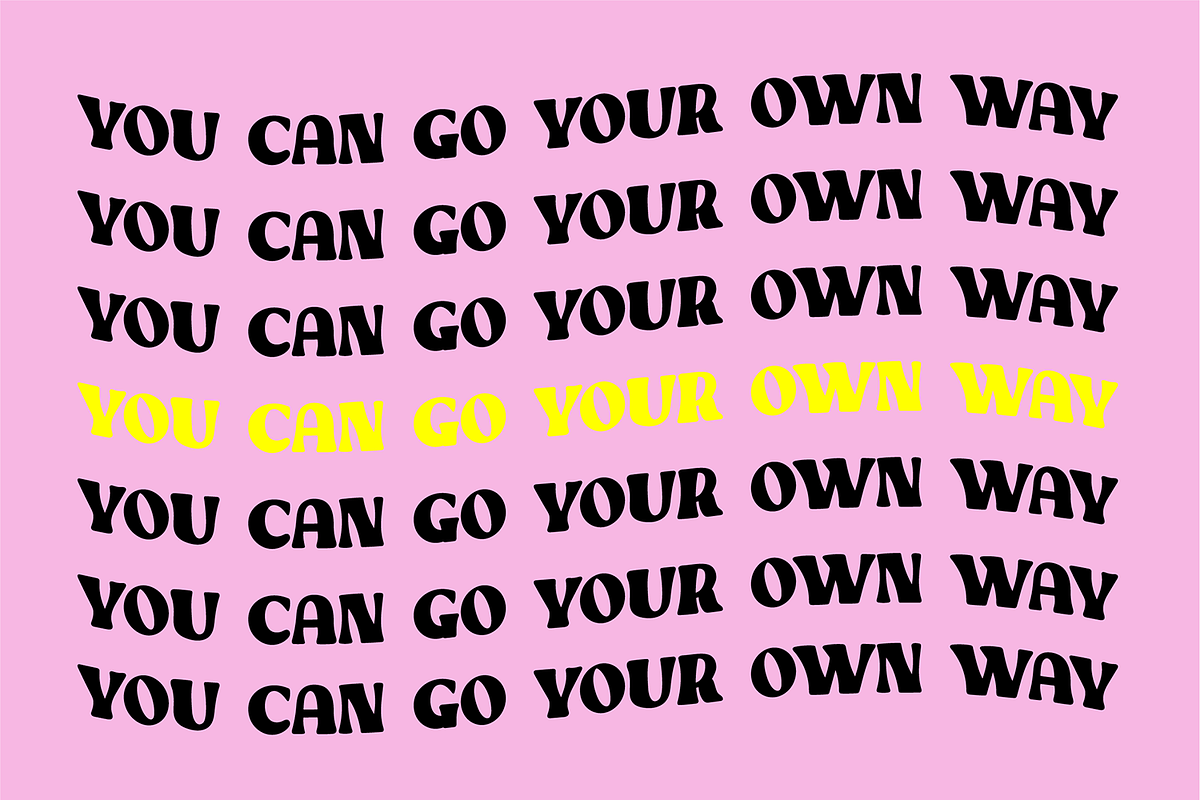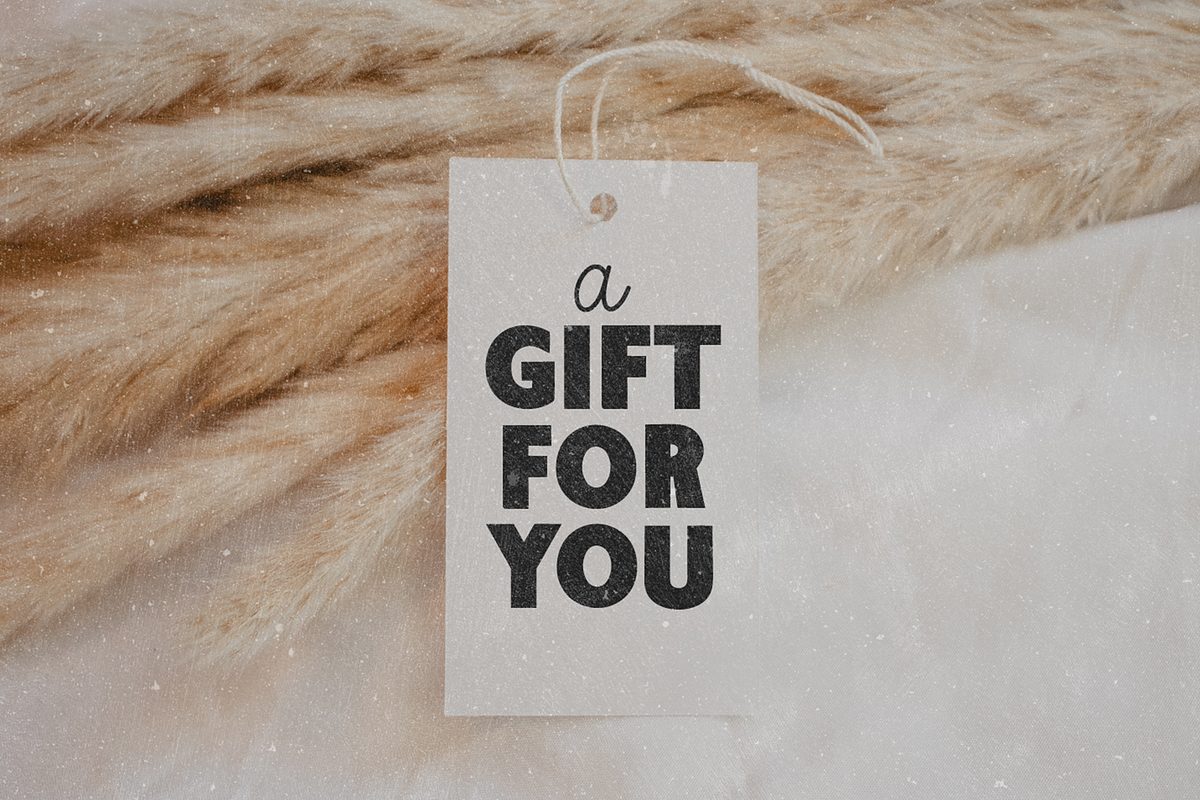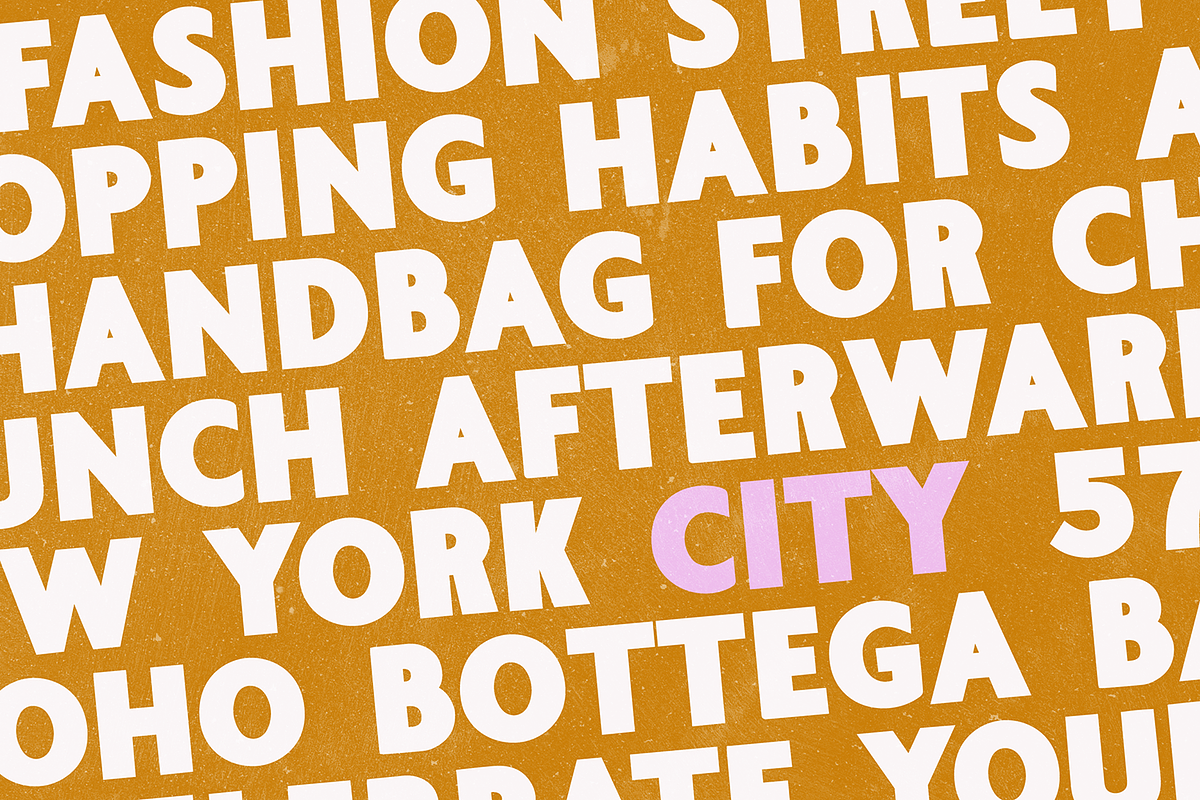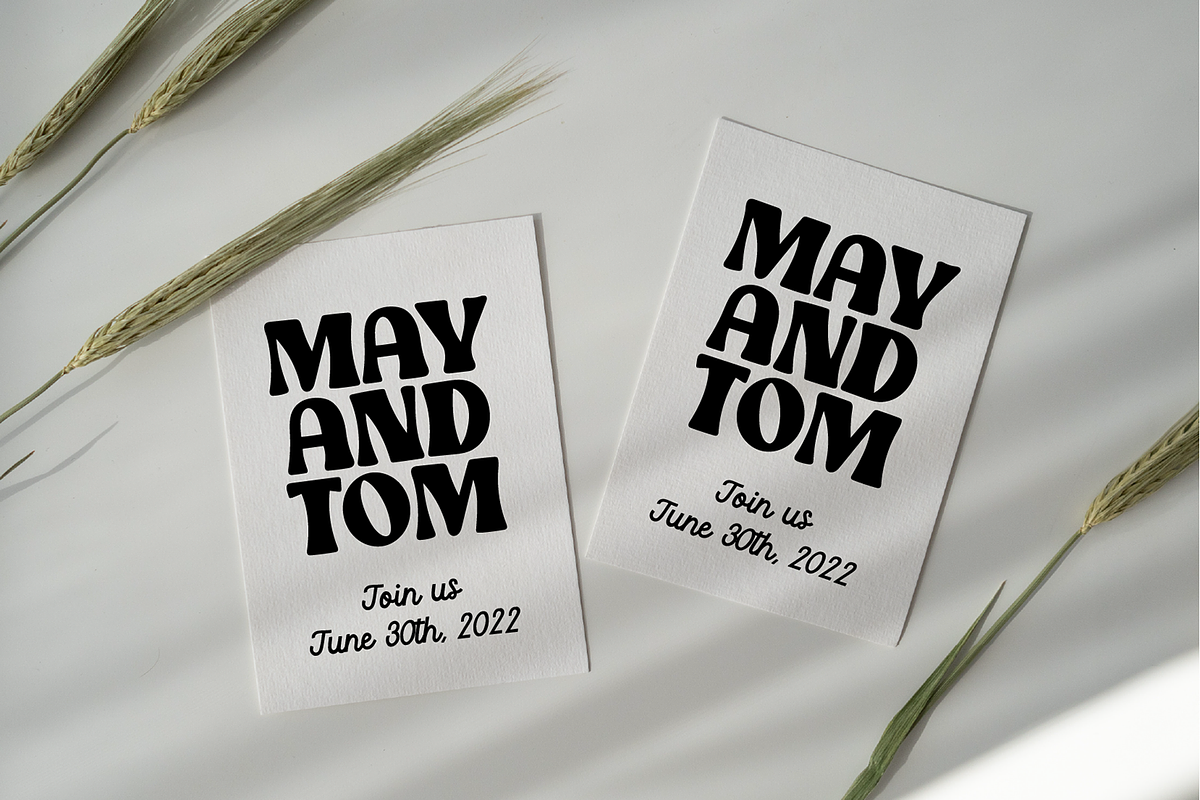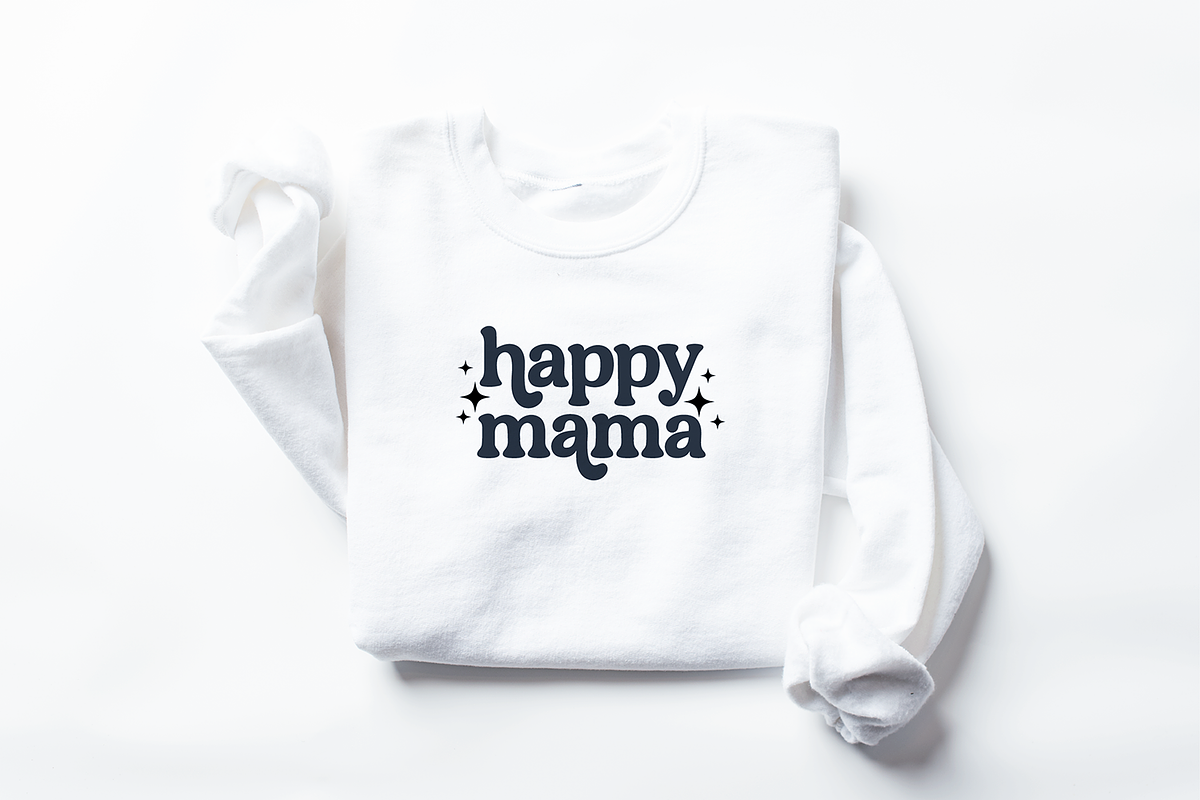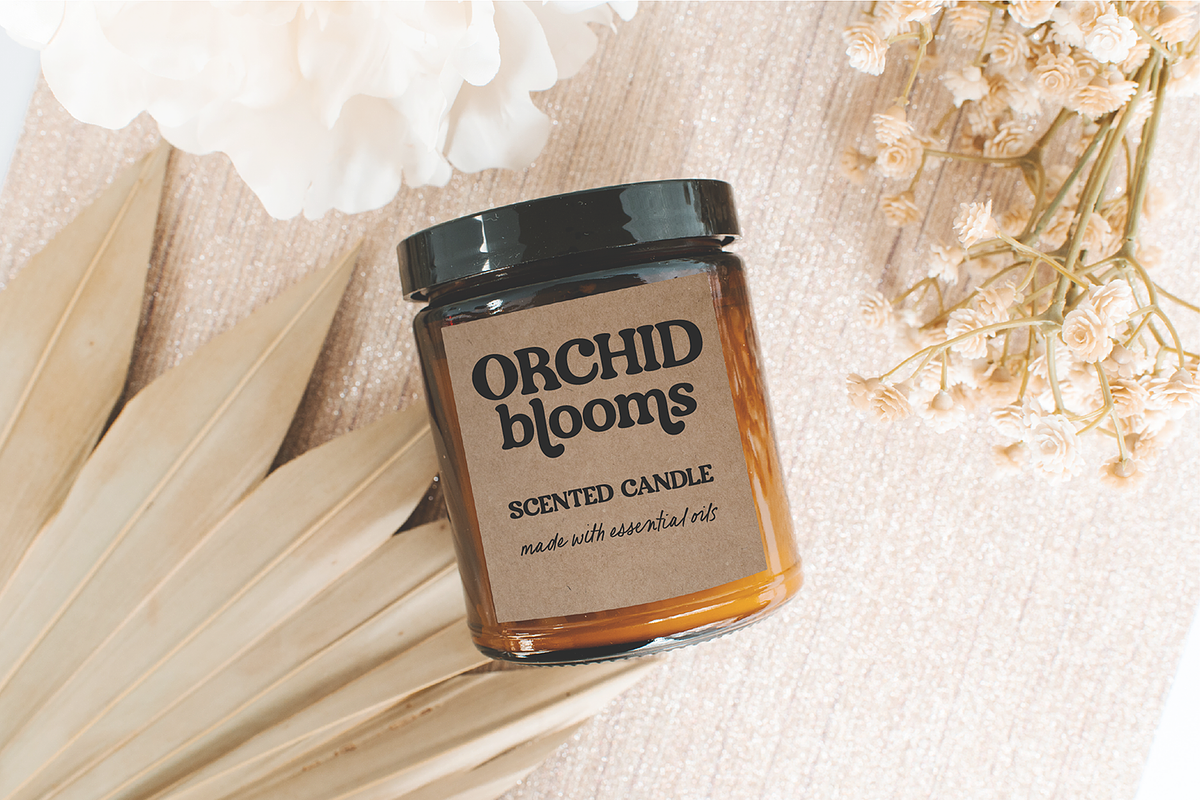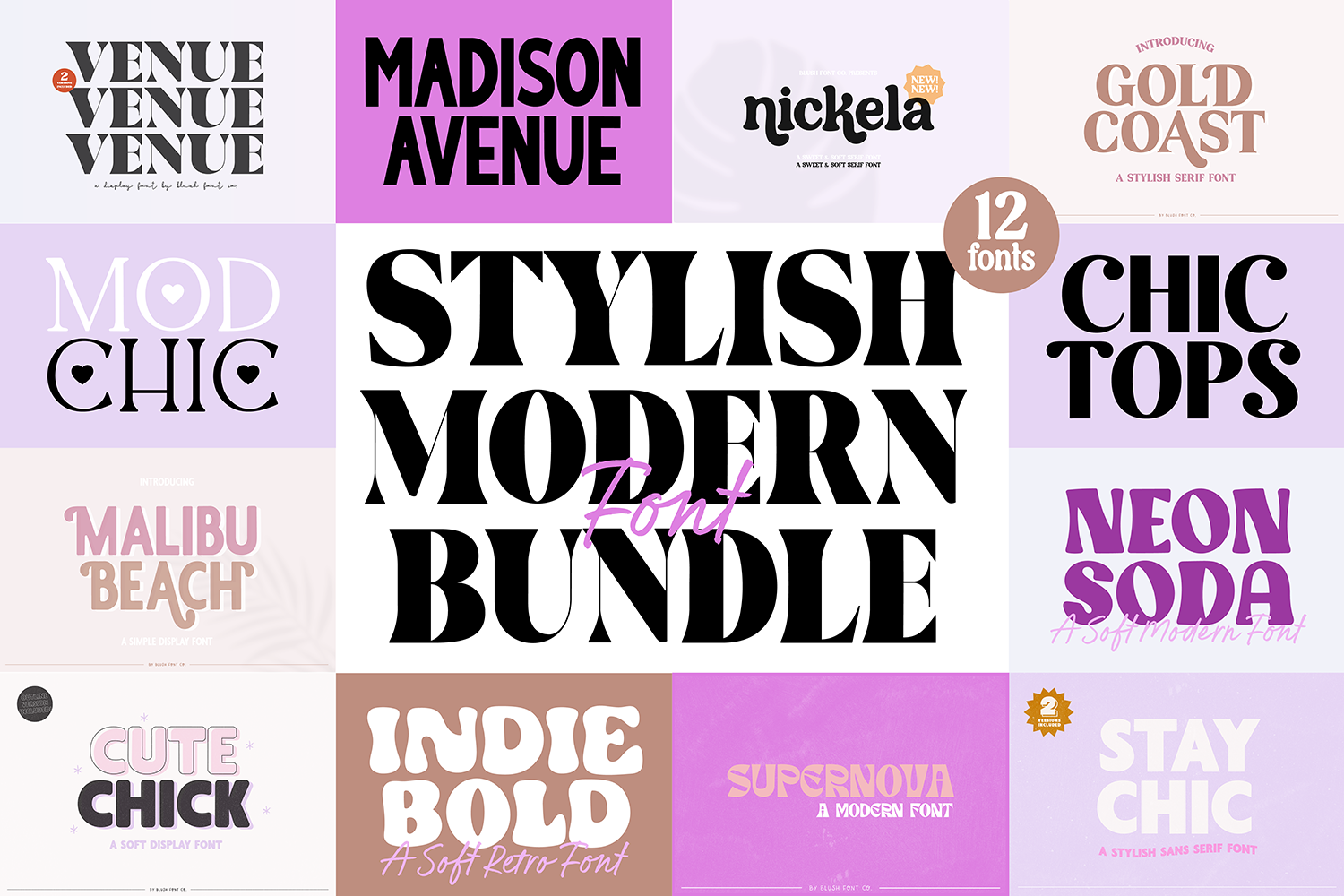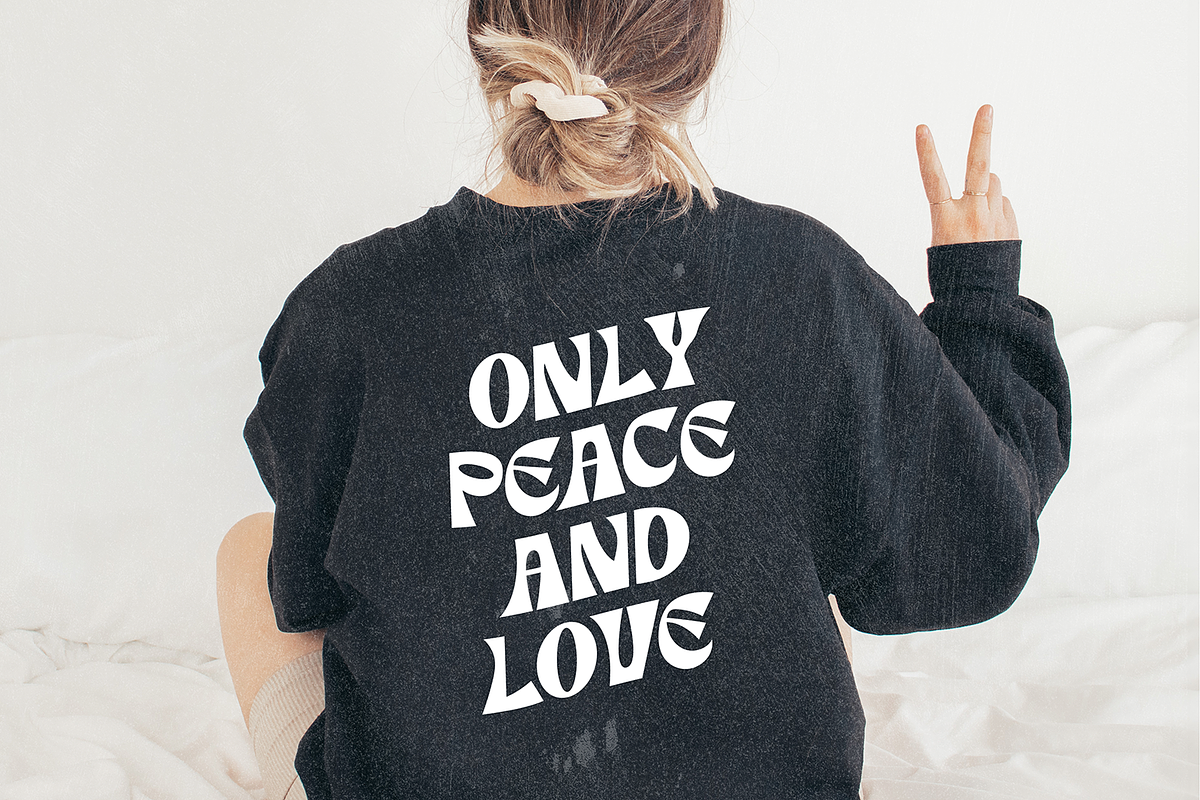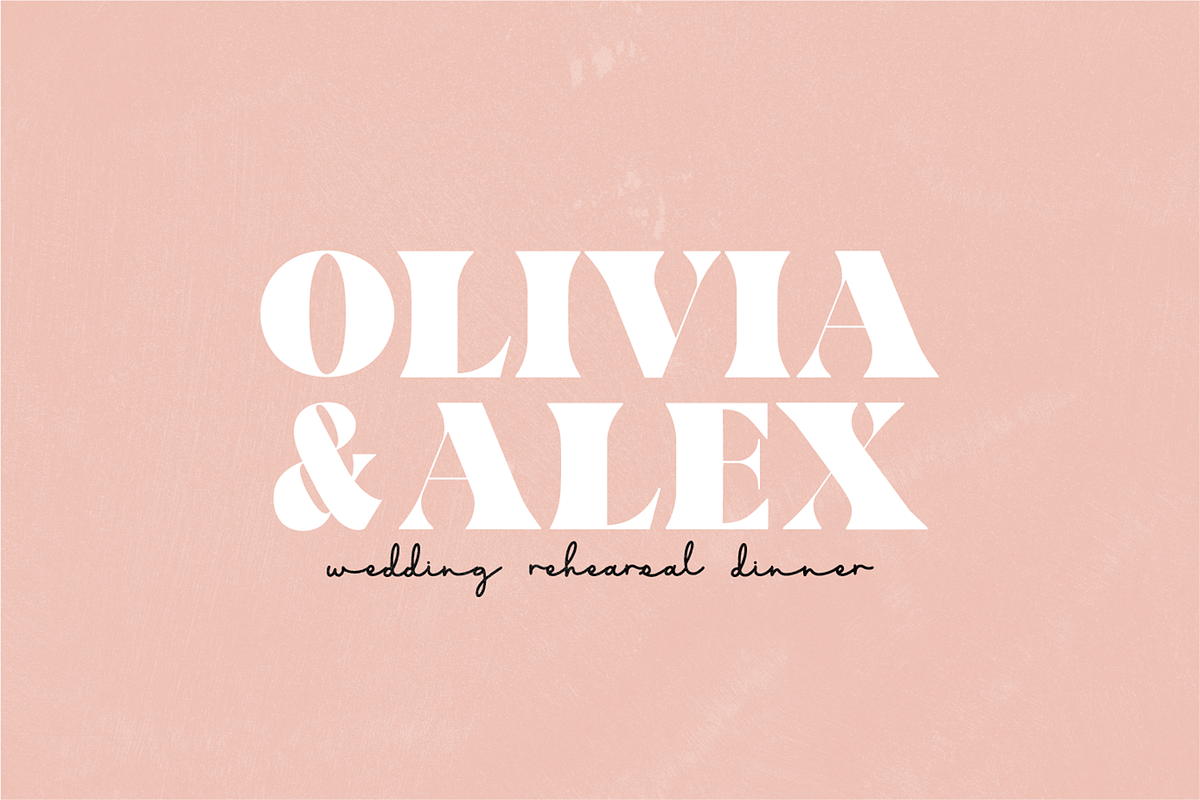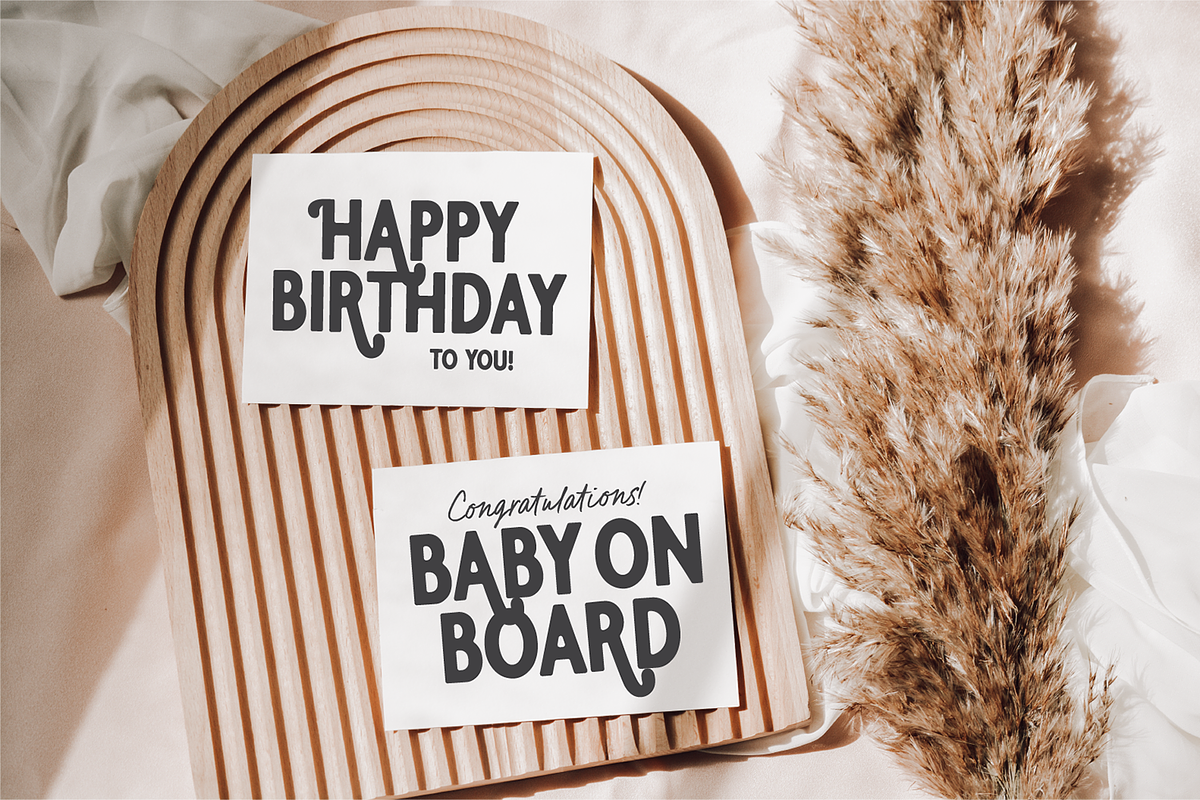
STYLISH MODERN Font Bundle V1
STYLISH MODERN FONT BUNDLE - 12 Fonts!
This font bundle is elegant and full of style! These trendy fonts are perfect for invitations, t-shirt design, birthday parties, procreate, weddings, cricut, and more!